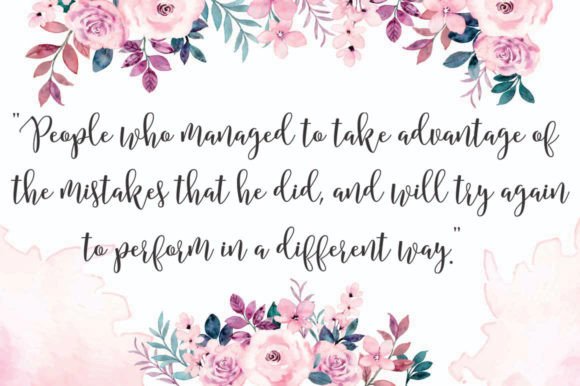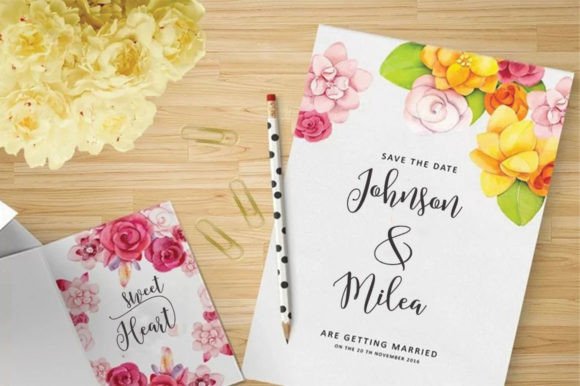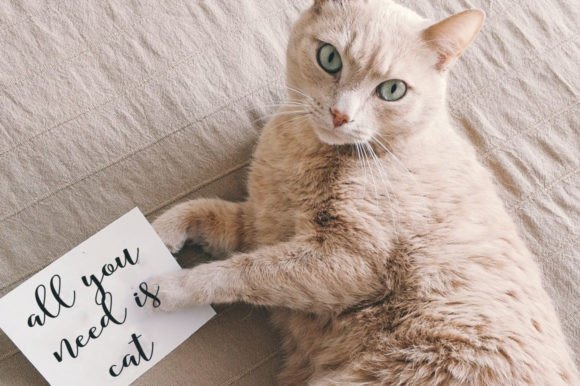
Introduction to Andhilia Font
Andhilia Calligraphy is a clean and modern script font carefully crafted with an elegant touch.
Whether youโre looking for a font for Instagram or a calligraphy script for a DIY project, this font will turn any creative idea into a true work of art This font is PUA encoded, which means you can access all of the glyphs and swashes with ease.
Key Features of Andhilia Font